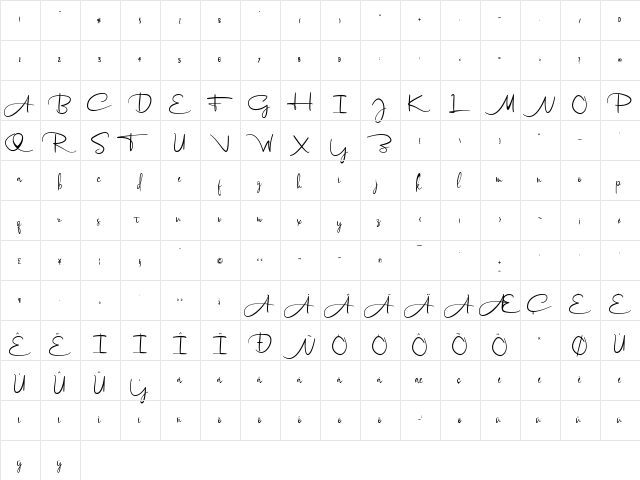
Soengenep Regular
Regular ·  Phytypo Design ·
DesignerPhytypo Design
Design Context for Soengenep Typeface
Soengenep is a composed and adaptable typeface that performs quietly and consistently across a wide range of design contexts.